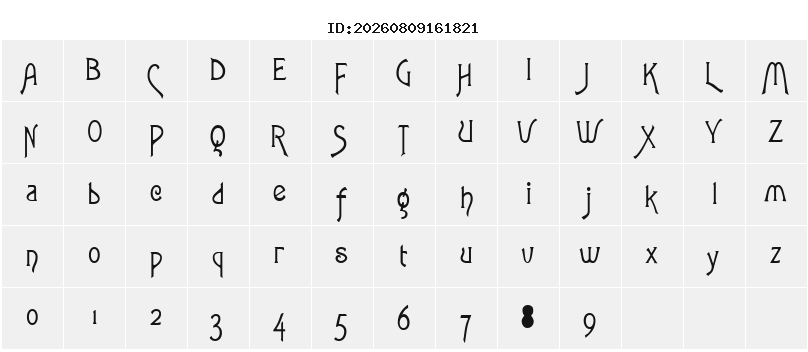
About Parsnip.ttf
Parsnip.ttf is a modern, elegant sans-serif font designed for ultimate readability and visual harmony. Perfect for branding, headlines, web design, and print materials.